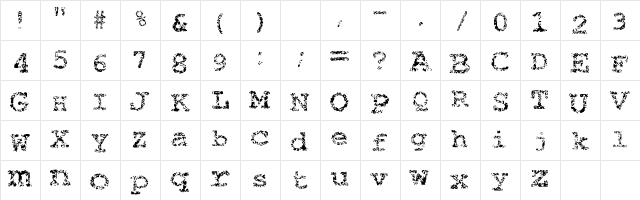
Typewriter from hell Regular
Design Context for Typewriter from hell Typeface
Typewriter from hell brings the precise, column-aligned rhythm of monospaced typography to designs that value technical clarity and systematic order.